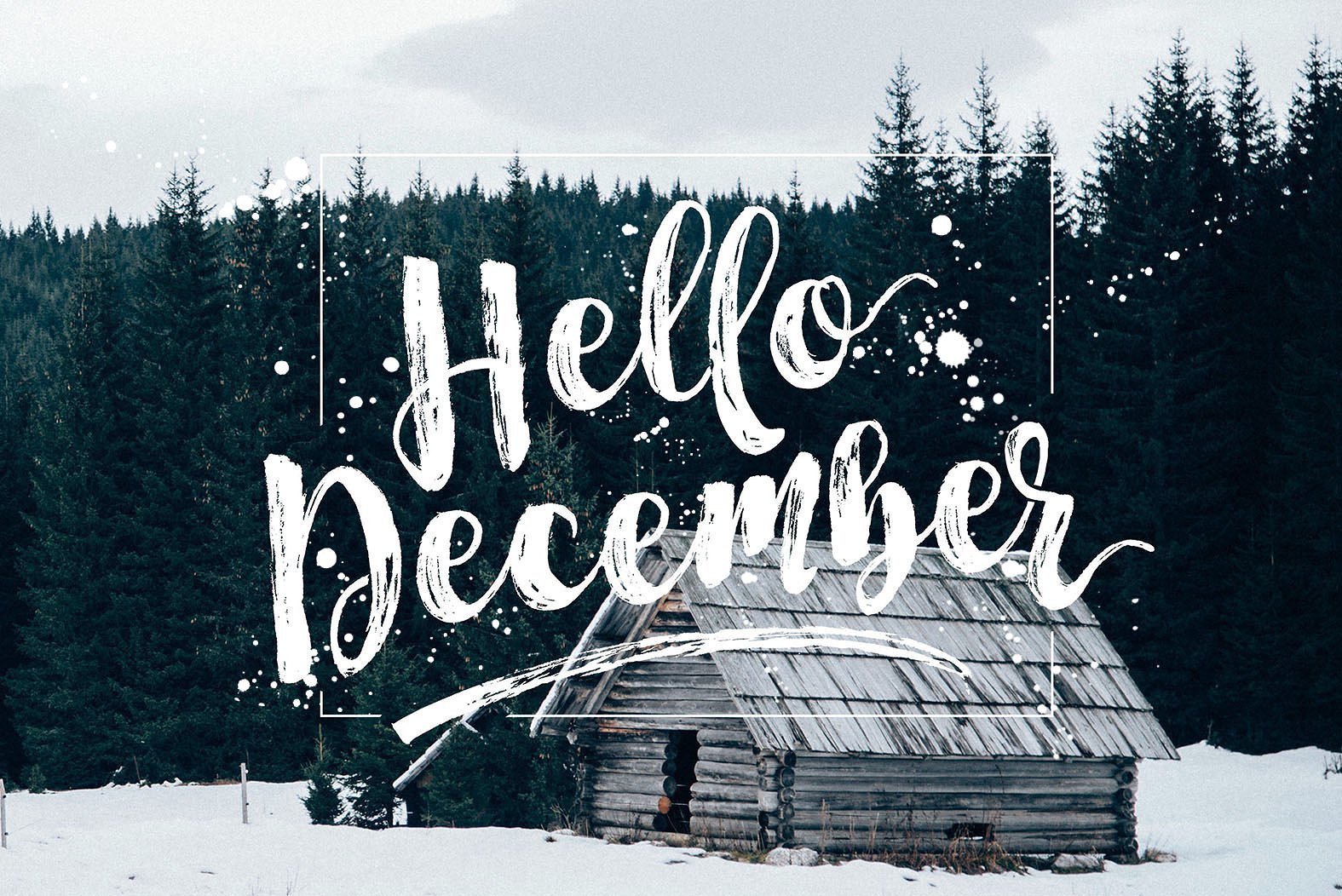
Start Today - Brush Font Duo
Start Today is a super casual hand brushed script with detailed brush stroke texture, and a quirky, all uppercase sans serif font, also has the dashing swashes in all the letters to add punch to your designs. Can used for various purposes. such as the title, signature, letterhead, signage, labels, newsletters, posters, logo, correspondence, wedding invitations, badges, etc.
Start Today Brush Font has some features of alternative characters, ligatures and International Support for a review of most Western languages included.